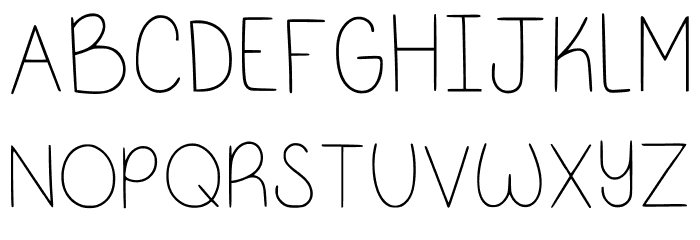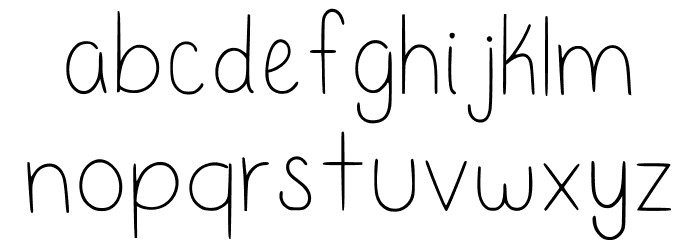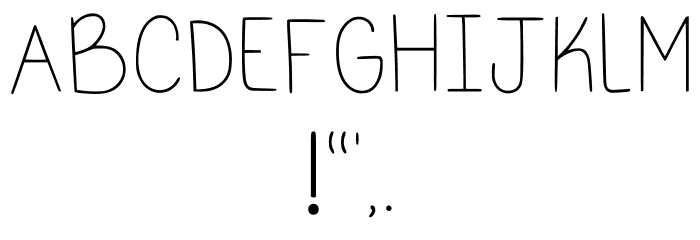
Paulina Reds Regular Font
A playful, handwritten font with a casual and friendly appearance. The characters are slightly irregular, adding a personal touch.
Playful handwritten font with a casual style.
- Proposed Projects: Greeting cards, children's books, informal invitations.
- Category: Handwritten
- Overall Style: Casual, Friendly
- Use Case: Headlines, Informal text, Creative projects